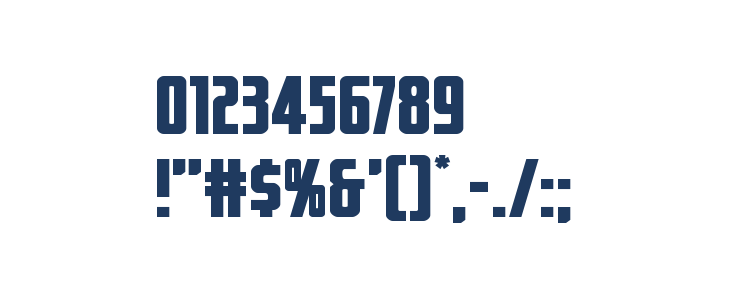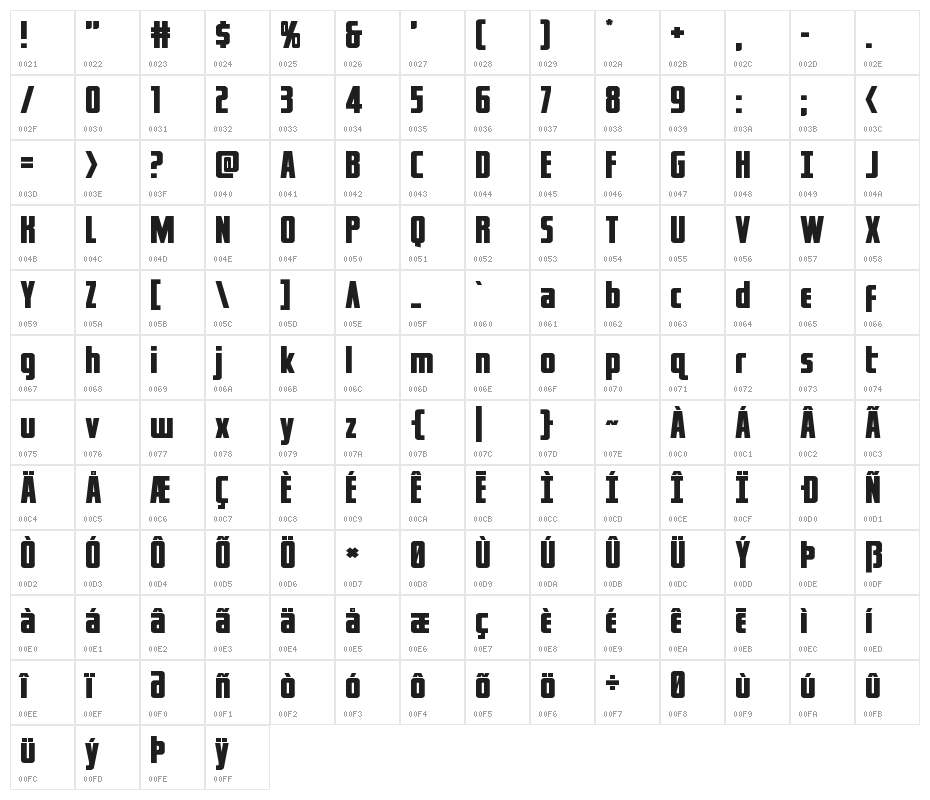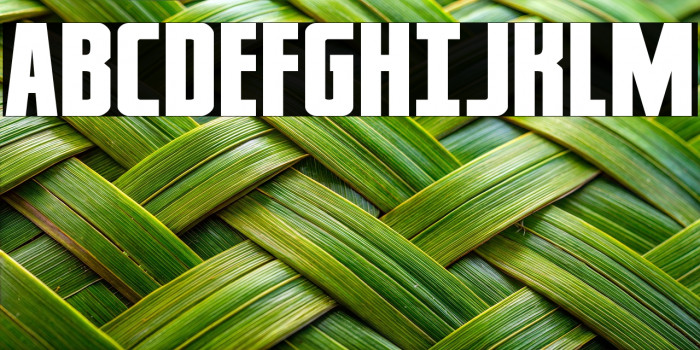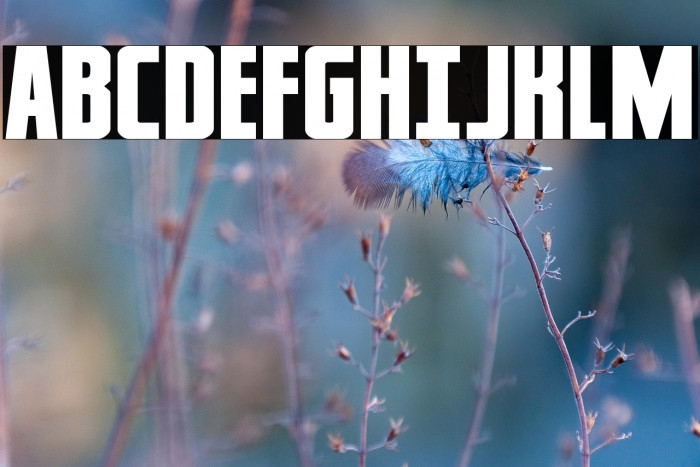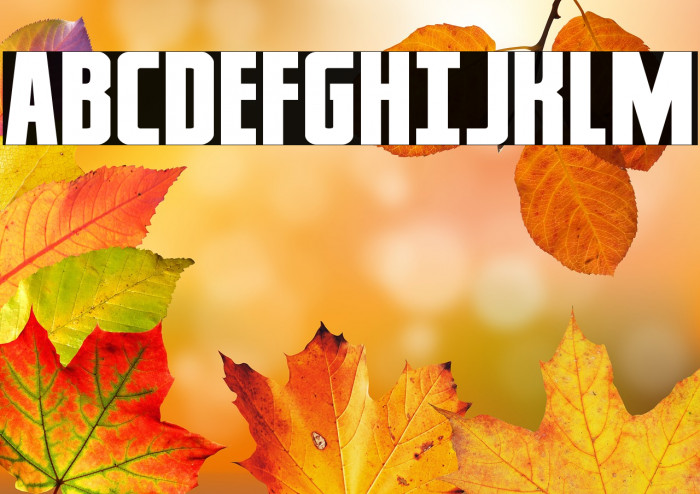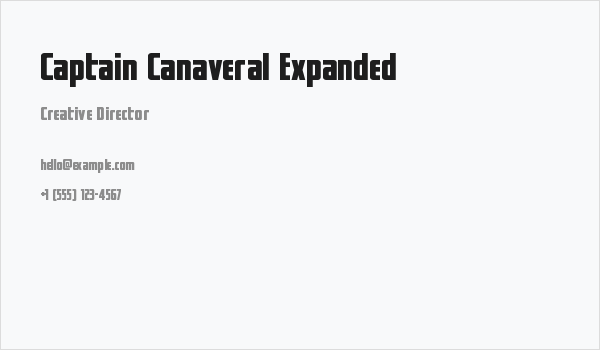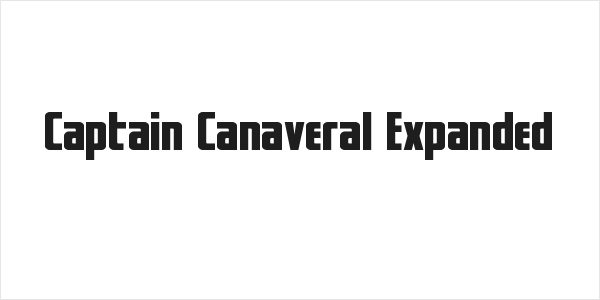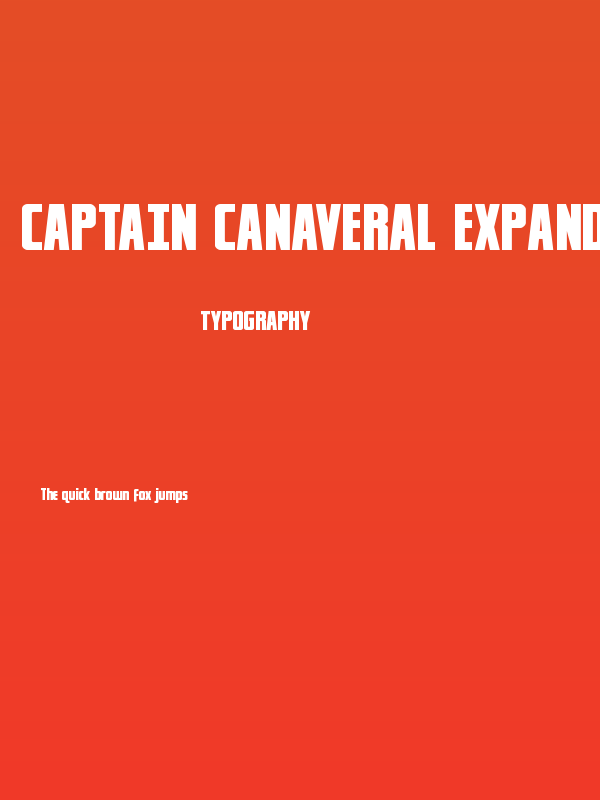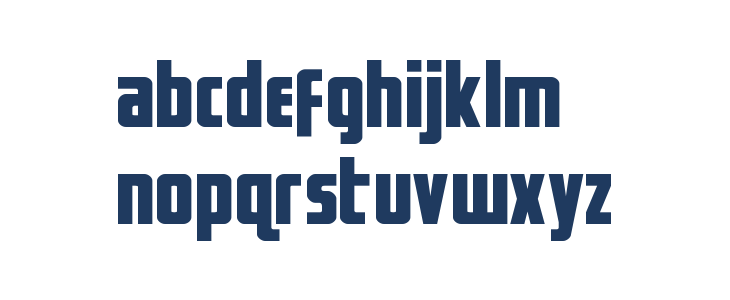
Captain Canaveral Expanded Font
Captain Canaveral Expanded Description
This font features a bold and impactful design with strong geometric shapes and a modern aesthetic. The characters are uniformly wide, giving a sense of stability and strength. The uppercase letters are particularly striking, with a blocky appearance that commands attention. The lowercase letters maintain the same boldness, ensuring consistency across text. Numbers and special characters are designed to match the overall style, making this font suitable for a variety of uses where a strong visual presence is needed.